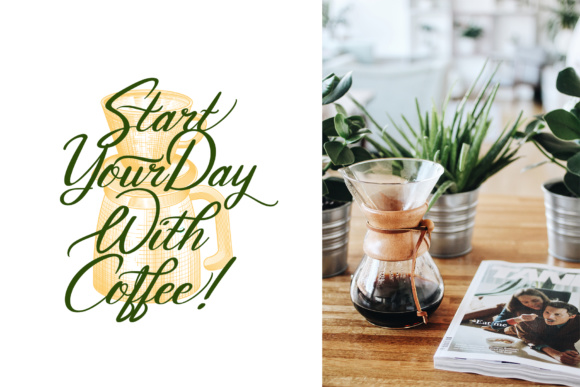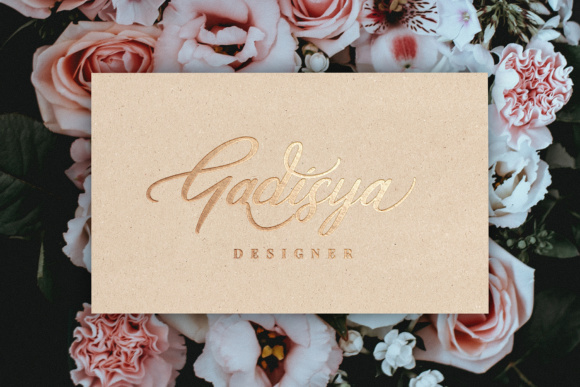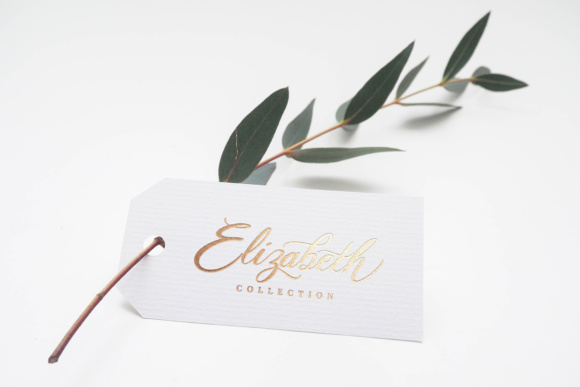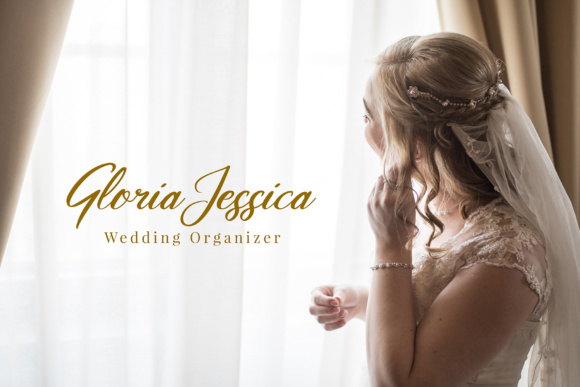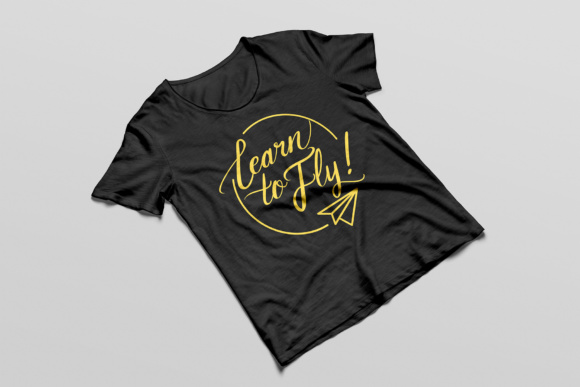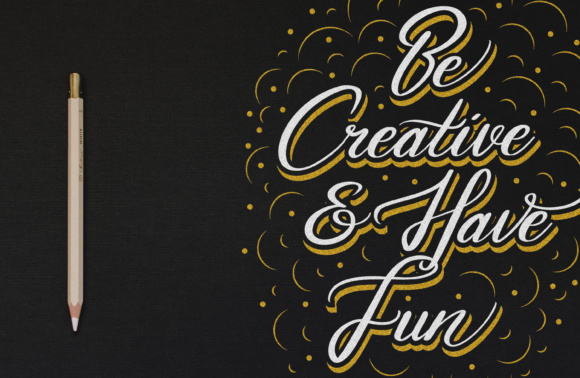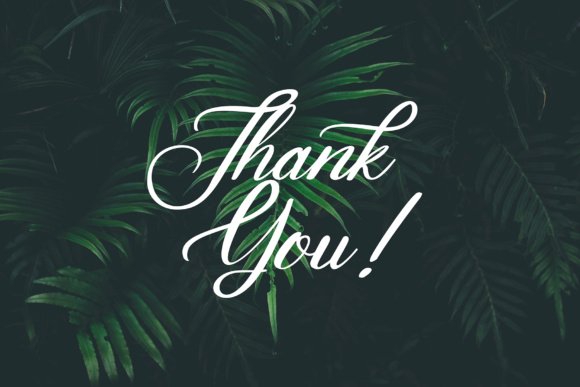
HomeScript FontsLa Maison Script Font Script Fonts La Maison Script Font FacebookXPinterestWhatsApp La Maison Script Font Poster 2 La Maison Script Font Poster 3 La Maison Script Font Poster 4 La Maison Script Font Poster 5 La Maison Script Font Poster 6 La Maison Script Font Poster 7 La Maison Script Font Poster 8 About La Maison Script Font The La Maison is a lovely calligraphy script font. It will add an elegant and feminine feel to your design. DOWNLOAD ON CREATIVE FABRICAThis font is sold and delivered by Creative Fabrica. Font Canyon may earn a commission if you buy through this link. People also explored Torgan Font Chopio Font Sakeso Font Marboost Font Dream Island Font Handmade Market Font Northern Stars Font Santa Font Kimberly Signature Font 353 0 TagsLa Maison Script Font Previous articleNight Fox FontNext articleHamsey Font LEAVE A REPLY Cancel reply Comment: Please enter your comment! Name:* Please enter your name here Email:* You have entered an incorrect email address! Please enter your email address here Website: Save my name, email, and website in this browser for the next time I comment. Personal Use Free Larosh Sithal Duo Personal Use Free Read more about this font Written by Hand Personal Use Free Read more about this font Boldace Personal Use Free Read more about this font Hello, How Are You? Personal Use Free Read more about this font BLOG Best Fonts for T-Shirt Design – Top 2025 Picks In 2025, t-shirt design has become more than just fashion—it's a form of self-expression. Whether you're... Free Fonts Risk: Why Free Fonts Can Be Dangerous for Designers Fonts That Capture the Spirit of New York City Elegant Wedding Invitation Fonts – Handwritten & Script Fonts